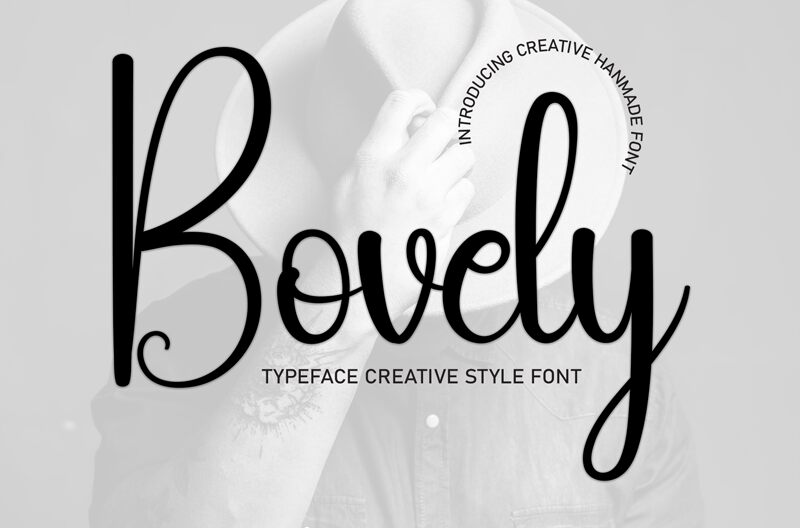
Bovely
Bovely font, designed by Andi Moz, is a charming handwritten display font that exudes warmth and playfulness. Its sweet curves and playful strokes make it perfect for adding a personal touch to any project.
Whether you're crafting wedding invitations or creating fun greeting cards, Bovely injects an engaging and friendly vibe into your design.